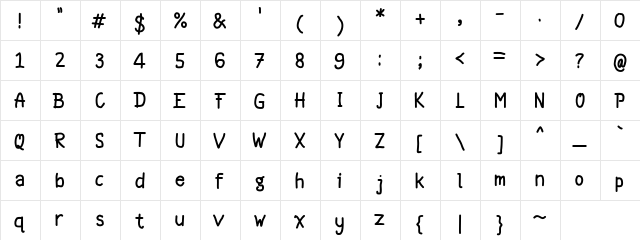
Hellowen Regular
Design Context for Hellowen Typeface
Hellowen is a composed and adaptable typeface that performs quietly and consistently across a wide range of design contexts.
Pro Tip: Pair Hellowen with a font of contrasting weight or personality to build a more expressive typographic hierarchy.